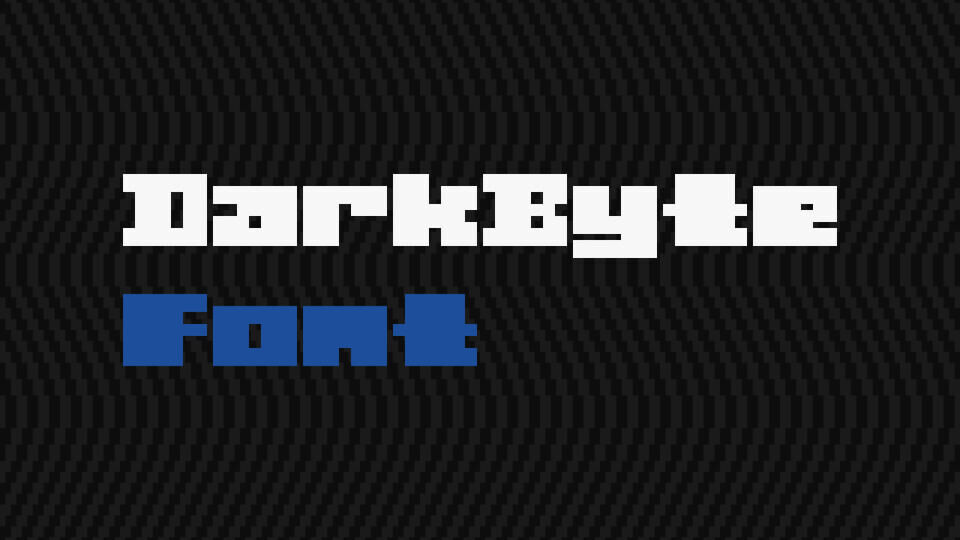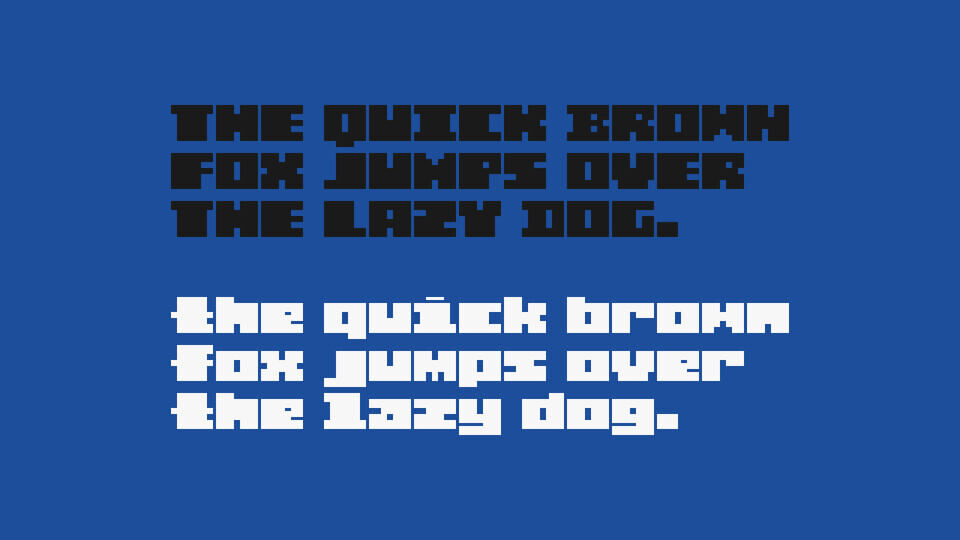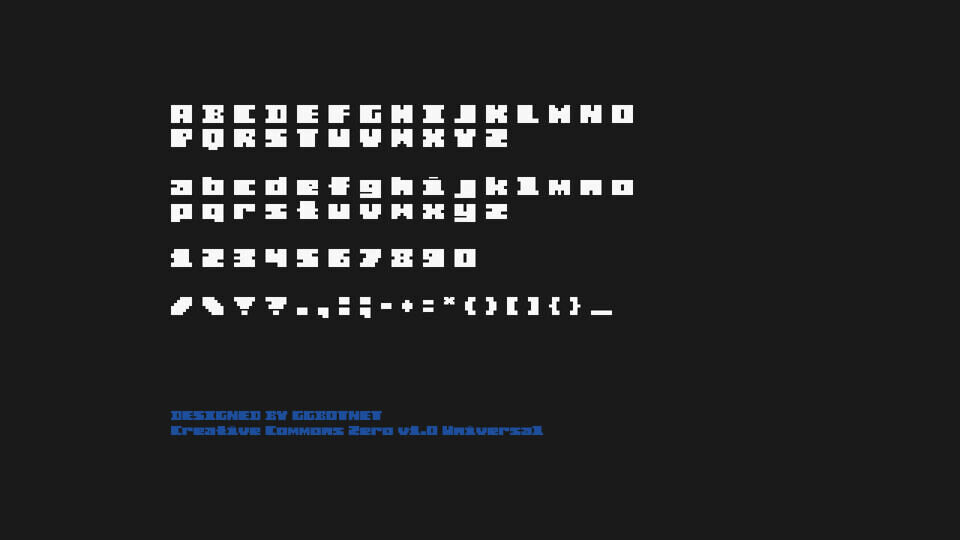
DarkByte is a bold pixel-/8-bit style font designed by GGBotNet, offering 258 glyphs with support for 25 languages including English, Spanish, Turkish, Finnish, and more.
It features sharp, block-y edges and monospaced proportions reminiscent of retro computer and video game typography, optimized for clarity at sizes like 16, 32, 64, 128, and 256 px. itch.io Licensed under CC0, it’s free for both personal and commercial use.